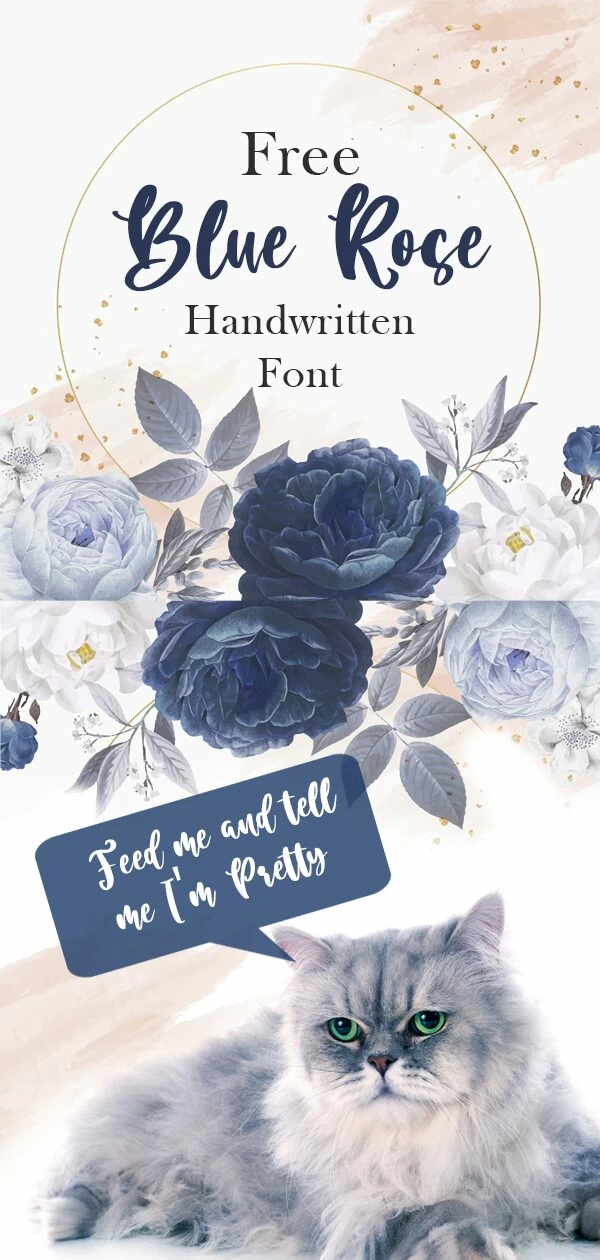
Free Font – Blue Rose
Today’s digital freebie is a fabulous new brush font called Blue Rose! One of my favorite features about this particular free font is that all the capital letters are “thickly” designed, perfect for cutting machines like the Cricut and Silhouette.
The beautiful caps would also be perfect for “initial” type projects, like monograms, personalized accessories, clothing, and jewelry pendant designs.
Is This Free Font Perfect for Cutting machines?
It is extremely frustrating when you are working hard on a cutting machine design only to find out your final cut design rips and tears when you start weeding out all the excess paper or when lifting it off of your matt! This Free Rose Blue Font has really “thin connecting” lines that could easily rip if the design is smaller in size but if it is a larger design you should be good to go while being gentle on your weeding process. For that reason, I can’t say 100% that it is a perfect cutting machine font as a whole. On the other hand, as I mentioned before, the capital letters, are perfect for machine cutting projects.
- The Blue Rose is a free chic brush font.
- The capital letters are a perfect thickness for cutting machine projects.